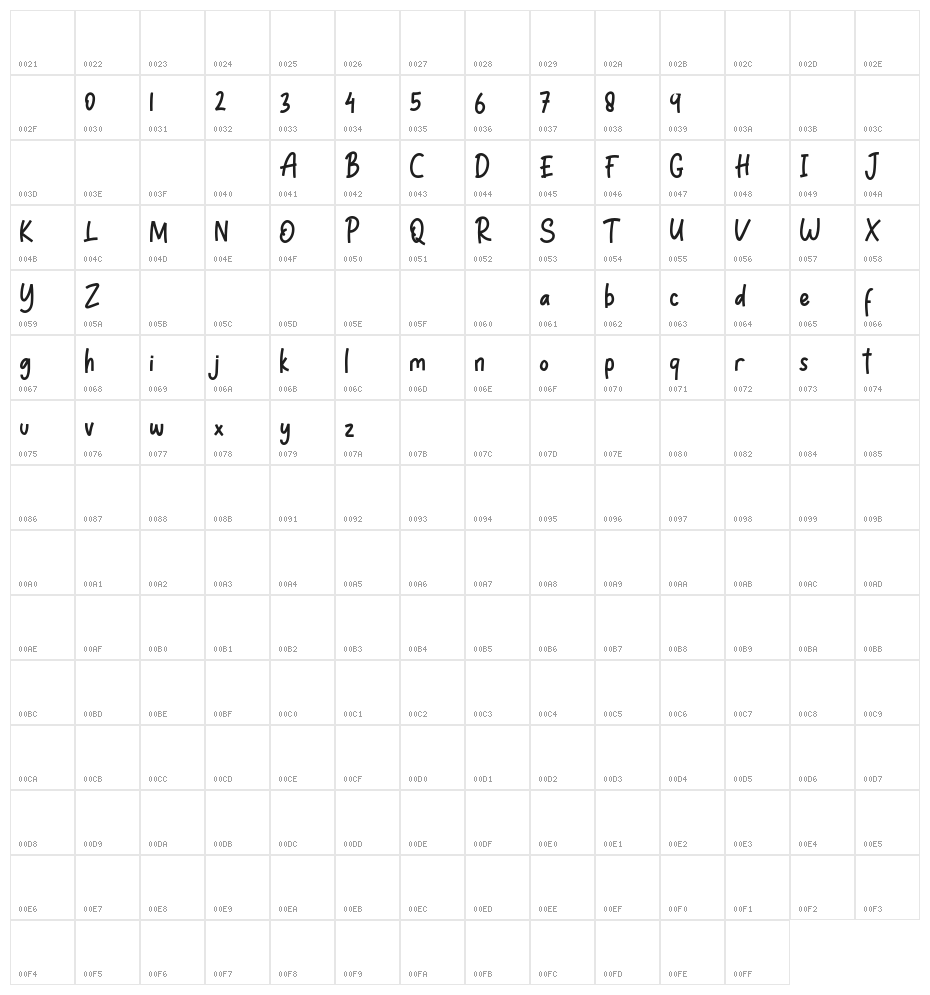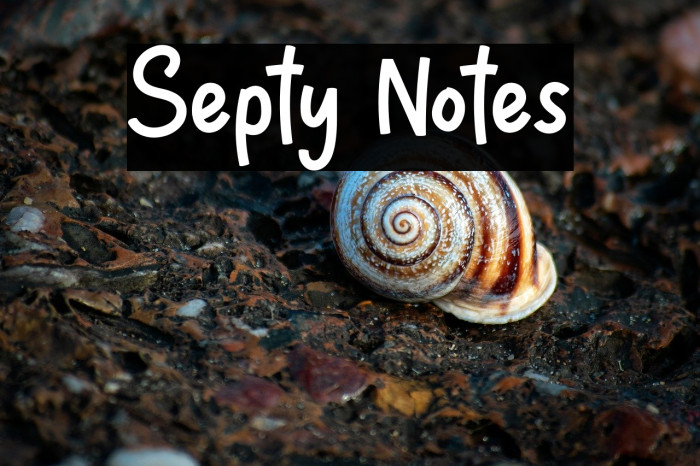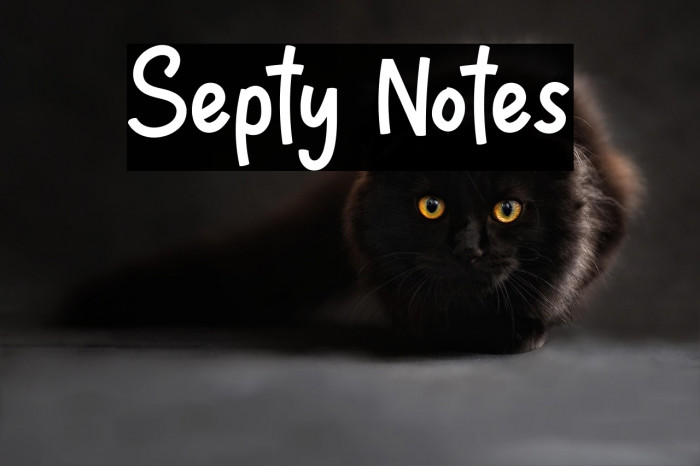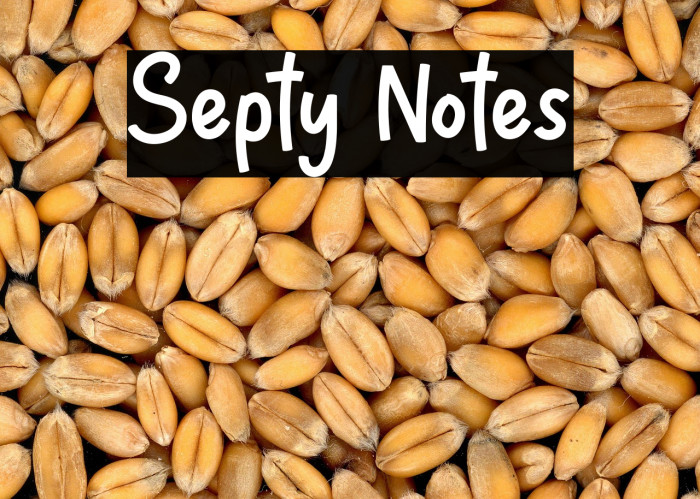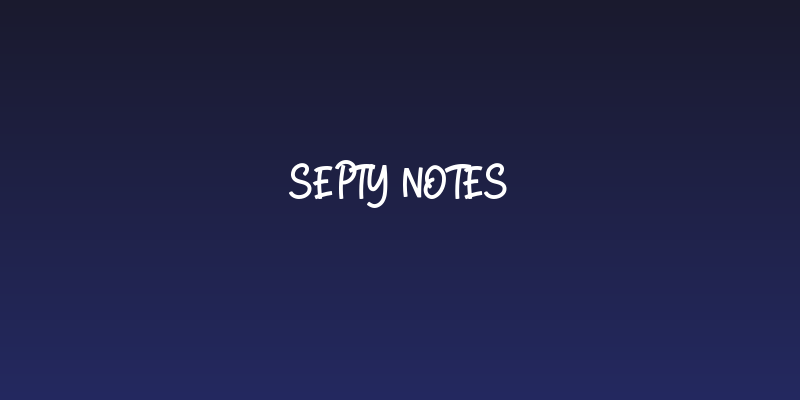
Septy Notes Font
Septy Notes Description
This playful and energetic font features a handwritten style with a casual and friendly appearance. The letters are slightly irregular, adding a personal touch that mimics natural handwriting. The strokes are bold and rounded, giving the font a warm and approachable feel. It includes both uppercase and lowercase letters, as well as numbers and a selection of special characters. The overall design is consistent, with a slight slant that enhances its informal nature. This font is ideal for projects that require a personal or creative touch, such as invitations, greeting cards, or playful branding.
| Proposed Projects | Ideal for invitations, greeting cards, playful branding, and creative projects. |